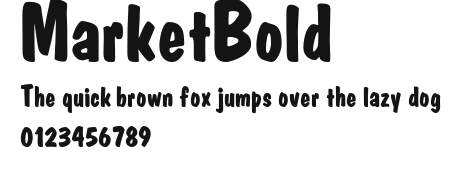
• Font Name: MarketBold
• Full Font Name: MarketBold
• PostScript Name: MarketBold
About MarketBold.ttf
MarketBold.ttf is a modern, elegant sans-serif font designed for ultimate readability and visual harmony. Perfect for branding, headlines, web design, and print materials.